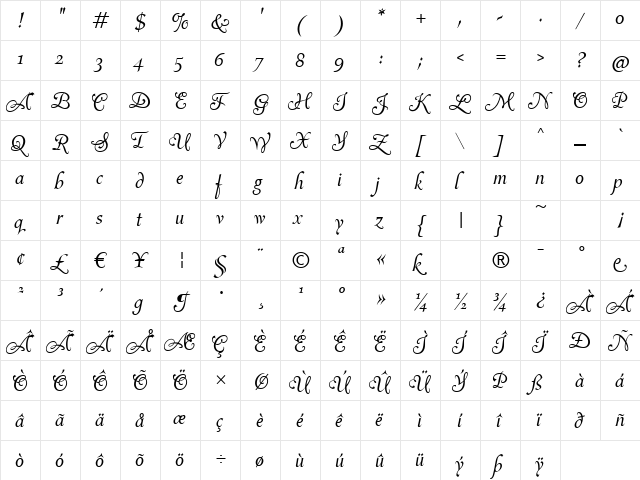
Avalanche Script TT Regular Font Preview
Avalanche Script TT Regular
Design Context for Avalanche Script TT Typeface
Avalanche Script TT flows with the natural rhythm of handwritten lettering, making it ideal for designs that call for warmth and personal expression.
Font Pairing: Combine Avalanche Script TT with a simple geometric sans for maximum contrast — the tension between flowing curves and clean structure is a classic typographic pairing.
Pro Tip: Use Avalanche Script TT for short runs of text — names, titles, or taglines. Extended body copy in script faces tires the eye quickly.